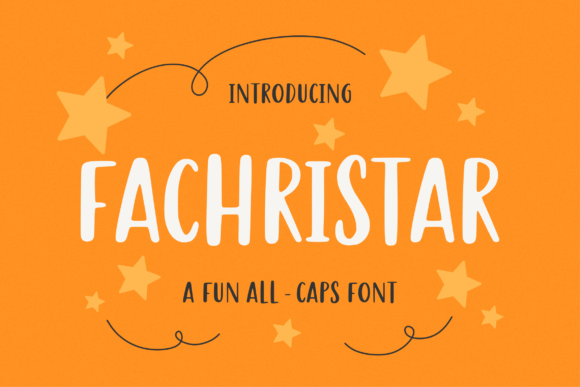
Behold, the Las Vegas lights compressed into a font, Fachristar, a dazzling display font, ready to ignite your designs with its radiant energy. Inspired by the city that never sleeps, Fachristar captures the essence of glamour, excitement, and endless possibilities. With its clean lines and friendly curves, Fachristar is a versatile font, perfect for illuminating your creative endeavors.
Step into the spotlight with Fachristar, the font crafted for your extraordinary projects. Its striking presence commands attention, leaving an unforgettable mark on every layout. Imagine your product packaging radiating with Fachristar's bold personality, turning your brand into an instant head-turner. Unleash your creativity and design magazine covers that exude sophistication, leaving readers spellbound. Whether it's social media posts, wedding invitations, or simply adding a touch of brilliance to your designs, Fachristar is your perfect companion.
Unleash your inner artist and paint the town red with Fachristar. Its vibrant characters dance across the screen, adding a stroke of elegance and uniqueness to every word. Transport your audience to the heart of Las Vegas, where dreams come alive and the night sky twinkles with a thousand stars. Fachristar is more than just a font; it's an experience, a journey into the heart of creativity.
Fachristar is a gift to designers, a tool that empowers you to create captivating visuals that resonate with your audience. It's the font that transforms ordinary words into extraordinary expressions, making your designs shine brighter than the Vegas strip. Say goodbye to boring fonts and embrace the allure of Fachristar, the font that ignites your imagination and sets your designs ablaze.